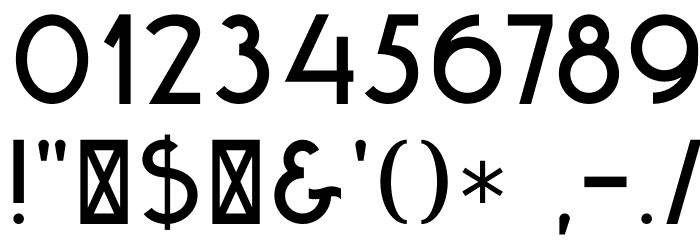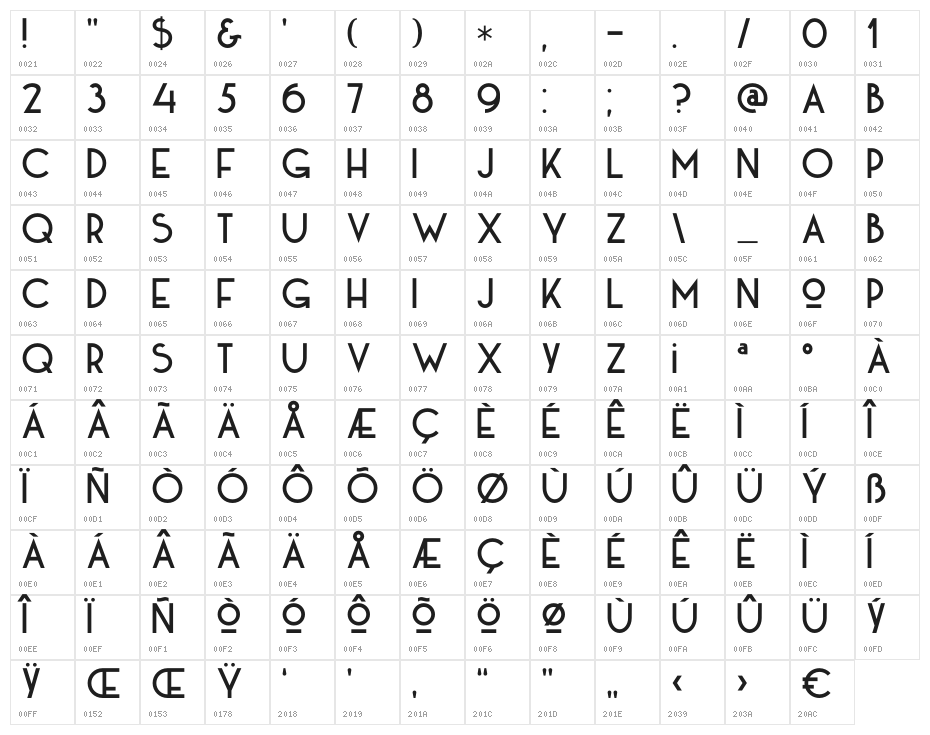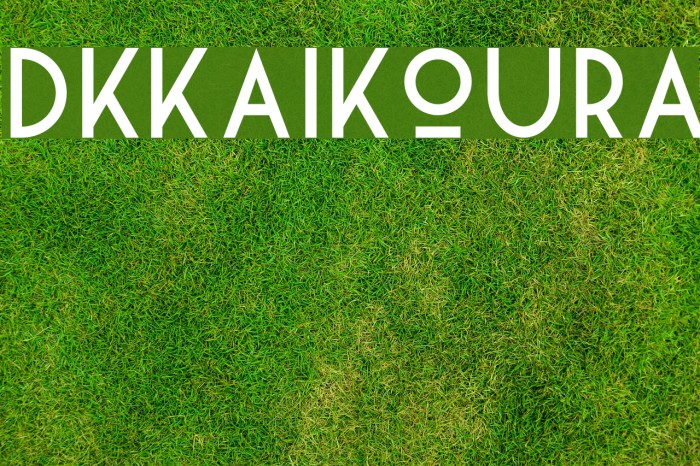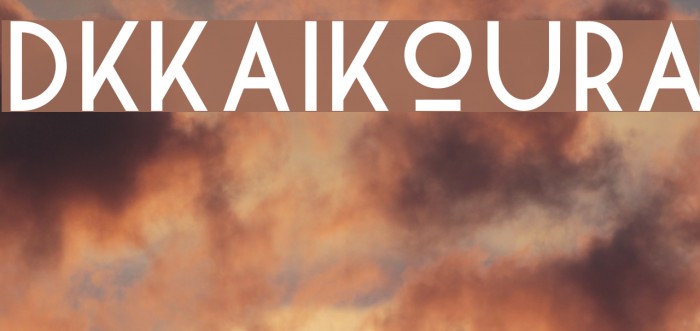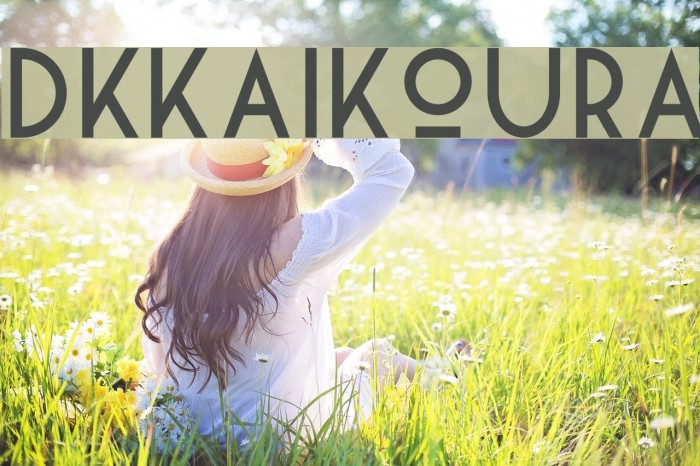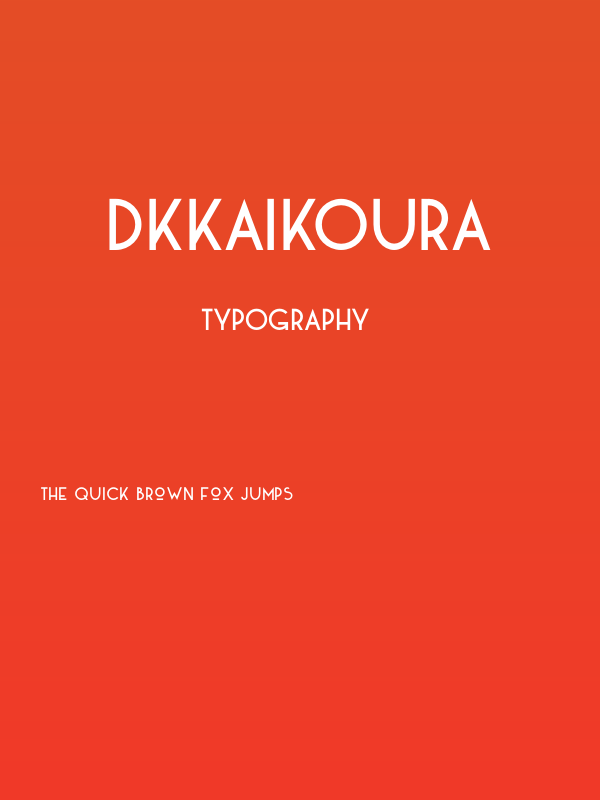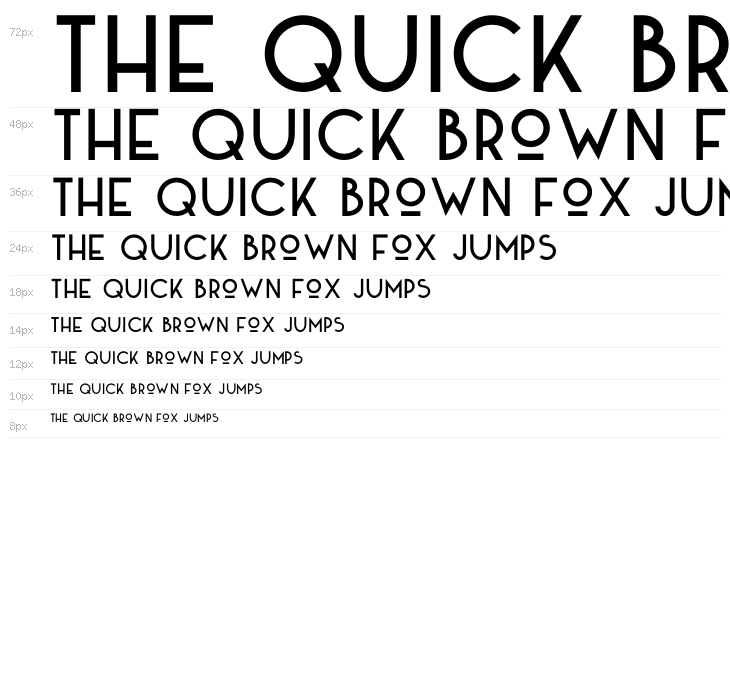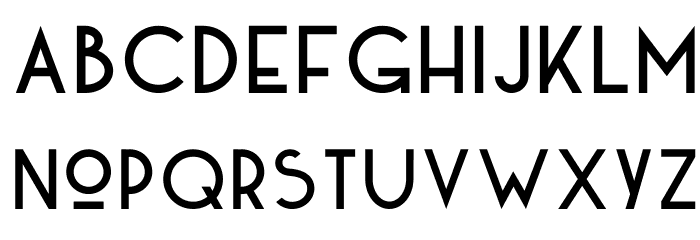
DKKaikoura Font
DKKaikoura Description
This font features a clean, geometric design with a modern aesthetic. The uppercase and lowercase letters are crafted with precision, showcasing a uniform stroke width that contributes to its sleek appearance. The numerals are distinct and easy to read, maintaining the same geometric style as the alphabet. Special characters are included, offering a comprehensive set for various uses. The overall look is minimalist yet impactful, making it suitable for contemporary design projects.
| Use Case | Headlines, Logos, Digital Media |
| Proposed Projects | Ideal for branding, advertising, digital media, and editorial design projects. |